Variable fonts are no longer a novelty. They are rapidly becoming the professional standard for type design, web performance, and brand typography at scale. If you’ve been watching the type world closely, you already know that creating variable fonts is one of the most searched and discussed topics among designers today. And for good reason.
Consider what Monotype did with Helvetica Now Variable: one single file containing over 1.2 million distinct Helvetica styles. Or what Hoefler & Co. achieved with Gotham Variable, celebrating 25 years of one of the most iconic typefaces in history by finally unlocking its full design space. These aren’t marketing stunts. They represent a fundamental shift in how type systems work.
Variable fonts change the economics of typography. They reduce HTTP requests, shrink total file sizes across large font families, and give designers infinitely finer control over weight, width, and optical behavior. Learning how to create variable fonts from scratch is now a career-defining skill for any serious type designer.
This guide covers everything: what variable fonts actually are, why they matter for web performance and branding, the tools you need, and a precise, step-by-step workflow for building your own variable font from the ground up.
What Exactly Is a Variable Font, and Why Does It Change Everything?
A variable font is a single OpenType font file that stores a continuous range of design variants. Instead of separate files for Light, Regular, Bold, and Black, one variable font file contains all of them—and every possible value between them.
The technology originates in Apple’s TrueType GX font variations, but it found its modern form in OpenType version 1.8, introduced jointly by Apple, Google, Microsoft, and Adobe in 2016. Today, variable font support sits at 92 out of 100 in browser compatibility, and according to HTTP Archive data, roughly 40% of websites now use at least one variable font.
The core concept is the variation axis—a defined dimension of change within a typeface. Each axis has a minimum value, a default value, and a maximum value. The rendering engine interpolates smoothly between them. You’re not locked to preset increments; you can dial a weight to 437 if your design demands it.
The Five Registered OpenType Axes
The OpenType specification defines five standardized, or “registered,” axes:
- wght (Weight): Controls stroke thickness, ranging from 100 to 900. Maps directly to CSS
font-weight. - wdth (Width): Adjusts horizontal character scaling from condensed to extended, expressed as a percentage.
- ital (Italic): Toggles between upright and italic design, typically 0 to 1.
- slnt (Slant): Controls the oblique angle from −90 to +90 degrees.
- opsz (Optical Size): Optimizes letterforms for specific display sizes, typically 6 to 144.
Beyond these, type designers can define custom axes using four-character uppercase tags. These are where creative range expands dramatically—axes for contrast, grade, x-height, serifs, and even entirely invented formal properties.
Why Variable Fonts Matter for Web Performance and Brand Systems
The performance argument is straightforward. A type system requiring six weights—Thin, Light, Regular, Medium, SemiBold, Bold—means six HTTP requests and six font files. A single variable font replaces all of them. When three or more weights are needed, variable fonts typically reduce total file size by 30 to 65%, according to HTTP Archive benchmarks.
But the more interesting argument is creative. Variable fonts allow typography to respond to context in real time. Weight can shift with viewport width. A headline can breathe differently at 320px than at 1440px. Optical size axes let letterforms behave correctly whether they’re set at 9pt on a watch face or 120pt on a billboard.
For brand systems specifically, variable fonts eliminate a persistent problem: stylistic drift. When every weight lives in a separate static file, inconsistencies creep in. A variable font guarantees that every instance—no matter how unusual the axis values—derives from the same master design. That’s typographic discipline built into the file format itself.
Consider how Charles Nix, Creative Type Director at Monotype, described Helvetica Now Variable: variable typefaces will reshape the concept of what the word “typeface” means. That’s not a feature announcement. That’s a structural claim about how typography operates.
How to Create Variable Fonts: The Tools You Need
Before touching a single node, you need to choose the right software. The market has consolidated around a few professional tools, each with distinct strengths.
FontLab 8
FontLab is the industry’s most technically comprehensive font editor. It supports variable fonts, color fonts, and OpenType features within a single environment. The Variations panel gives a spatial view of the entire design space, showing all masters and their axis positions simultaneously. FontLab handles both Bézier (PostScript) and TrueType outlines, which matters for hinting and variable font export compatibility. It’s available for Mac and Windows, making it uniquely cross-platform among professional tools.
Glyphs 3
Glyphs has become the favorite of many contemporary type designers working on Mac. Its interface is faster to navigate than FontLab for complex glyph-level work. The variable font workflow in Glyphs is built around masters and instances defined directly in Font Info, with axes configured as a coordinate system before any drawing begins. Glyphs 3 supports the full range of registered and custom axes, exports to variable TTF with precision, and has an active community producing tutorials and scripts.
RoboFont + Superpolator
RoboFont is a modular, script-friendly editor for Mac that pairs naturally with Superpolator for multi-master design space management. Designers who prefer minimal interface and maximum scripting control often gravitate here. It’s less approachable for beginners but extremely powerful for complex design spaces.
FontForge (Free)
FontForge is an open-source option that technically supports variable font creation, but its workflow is significantly more manual and its interface considerably older. It remains a useful learning tool and a production option for designers with limited budgets.
| Tool | Platform | Cost | Variable Font Support | Best For |
|---|---|---|---|---|
| FontLab 8 | Mac, Windows | Paid (one-time) | Full — PS + TT outlines | Advanced users, technical precision |
| Glyphs 3 | Mac only | Paid (one-time) | Full — TTF export, custom axes | Modern type designers, fast workflow |
| RoboFont + Superpolator | Mac only | Paid (modular) | Full — script-based workflow | Scripting-forward designers |
| FontForge | Mac, Win, Linux | Free | Partial — manual setup | Learning, limited-budget projects |
| Superpolator | Mac only | Paid | Design space management | Multi-axis interpolation planning |
How to Create Variable Fonts: A Step-by-Step Workflow
The following framework—what I call the Axis-Master-Instance Pipeline—applies regardless of which tool you use. It’s the logical sequence every variable font creation process follows.
Step 1: Define Your Design Space Before You Draw
Most designers make the mistake of drawing first and thinking about variation later. This creates incompatible masters that can’t interpolate. Start by mapping your design space on paper or in a diagram. Decide which axes you need. A two-axis font with weight and width requires a minimum of four masters: Light Condensed, Light Extended, Bold Condensed, and Bold Extended.
Each axis needs three values defined: minimum, default, and maximum. For a weight axis, this might be 100 (Thin), 400 (Regular), and 900 (Black). The default is what the font renders at when no axis value is specified. Choose it carefully.
Step 2: Set Up Axes in Your Font Editor
In Glyphs 3, navigate to File > Font Info > Font > Axes, then click the plus button to add an axis. Choose the axis type—Weight, Width, Slant, etc.—and assign a four-character tag (wght, wdth, slnt). Set coordinate values for each master. Glyphs recommends using stem thickness as the value for the weight axis, since this creates meaningful numerical anchoring for interpolation.
In FontLab, the Variations panel is where you manage this. Add axes via Font Info, assign axis locations to each master, and use the spatial design space view to confirm master placement makes sense geometrically.
Step 3: Create Compatible Masters
This is the most technically demanding step. For interpolation to work, every glyph in every master must be compatible: identical point count, identical point order, and identical contour direction. If your Light master’s letter ‘a’ has 32 nodes, your Bold master’s ‘a’ must also have exactly 32 nodes in the same sequence.
Incompatible masters are the single most common cause of failed variable font exports. FontLab’s Match Masters function can detect and sometimes correct incompatibilities automatically. Glyphs flags incompatible layers visually in the glyph editor.
The Node Compatibility Principle—my term for this constraint—means you should design your most extreme masters (usually the heaviest and lightest weights) first, establish their point structures simultaneously, and keep them synchronized throughout the design process. Starting with one extreme and trying to adapt it later is significantly harder.
Step 4: Interpolate and Test Instances
Once your masters are compatible, your font editor can generate interpolated instances at any point along the axis. These are previews first, then named instances you define for export—Regular, Medium, SemiBold, etc.
In FontLab, create a virtual instance in the Variations panel and use the Preview panel alongside it to evaluate how glyphs look at any axis position. Pay particular attention to optical behavior at extreme values: thin hairlines at low weights, counter spaces at high weights.
In Glyphs, add instances in Font Info > Instances, then use the preview bar to step through them. Glyphs displays interpolation errors—called “kinks”—as red highlights on contours.
Step 5: Define Named Instances for the End User
Named instances are the predefined “presets” of a variable font—the positions in the design space that get standard names like Regular, Bold, or Display Light. They’re what appears in font menus for applications that support variable fonts but don’t expose axis sliders.
Think of named instances as navigation shortcuts across a continuous space. The space is infinite; the shortcuts make it navigable. Always define at least the instances that correspond to your original design intent. Beyond that, add instances for the positions most useful in practice.
Step 6: Space and Kern Across the Design Space
Spacing and kerning in variable fonts must hold up across all axis values, not just at the master positions. Optical spacing that works perfectly at regular weight can collapse or gap awkwardly at extreme values.
Both FontLab and Glyphs support kerning at the master level and interpolate between masters. The practical rule: kern at your extreme masters, then check interpolated instances in representative text strings. Adjust master kerning until the interpolated behavior is acceptable at all intermediate positions.
Step 7: Add OpenType Features
Variable fonts fully support OpenType features—ligatures, small caps, stylistic alternates, contextual alternates, and more. Define features in the font editor’s feature editor using standard OpenType feature code. Variable font behavior and OpenType features operate independently; a user can access stylistic alternates at any point in the design space.
Custom axes can interact with OpenType features in sophisticated ways. Some designers define a GRAD (grade) axis that adjusts apparent weight without changing metrics—useful for dark mode switching without layout reflow. This is advanced territory, but it shows how expressive variable font design can become.
Step 8: Export as Variable TrueType (.ttf)
Variable fonts export as TrueType-based OpenType files (.ttf or .otf with TrueType outlines). In FontLab, use File > Export Font As and select Variable TT (.ttf). In Glyphs, add a Variable Font Export setting in the export configuration, then export via File > Export.
After export, validate your file using tools like fonttools (Python-based), Font Bakery, or the online Wakamai Fondue. These check axis definitions, instance consistency, glyph compatibility, and OpenType table integrity.
Step 9: Convert to WOFF2 for Web Delivery
Variable fonts intended for web use should be compressed to WOFF2 format. WOFF2 is 30% smaller than WOFF and universally supported in browsers that support variable fonts. Use fonttools woff2 compress from the command line or the Glyphs WOFF2 export option.
Implement the font in CSS with a range-aware @font-face declaration that specifies both the weight and stretch ranges. Then use standard CSS properties—font-weight, font-stretch, font-style—for registered axes. For custom axes, use font-variation-settings.
Diagram: Two-Axis Variable Font Design Space
Weight (wght) × Width (wdth)
Notable Examples: What Professional Variable Fonts Look Like
Looking at how major foundries approached variable font creation teaches you what’s possible—and what’s genuinely hard.
Helvetica Now Variable by Monotype
Released in 2021, Helvetica Now Variable builds on Monotype’s 2019 redesign of Helvetica. The variable file contains a three-axis design space spanning weight (hairline to extra black), optical size (four point to infinity), and width (compressed to extended). The result: over 1.2 million mathematically distinct Helvetica styles in one file. For brand designers working with Helvetica at scale, this is transformative—every instance shares the same typographic DNA.
Gotham Variable by Hoefler & Co.
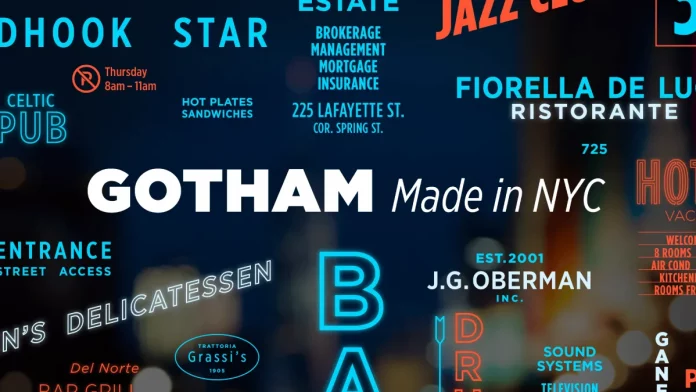
Gotham Variable arrived on Gotham’s 25th anniversary, translating one of the most influential American typefaces of the 21st century into variable format. Hoefler & Co. preserved the geometric clarity that made the original iconic while unlocking the full width and weight design space. Gotham Variable represents a different design philosophy than Helvetica Now Variable—the design space is tighter and more deliberate because Gotham’s character depends on restraint.
Inter Variable
Rasmus Andersson’s Inter is perhaps the most-used variable font on the open web. It was designed from the start as a variable font, which shows in the quality of intermediate interpolations. The weight axis is remarkably clean across the full range. Inter is an excellent reference for anyone learning variable font design because its source files are openly available on GitHub.
The Axis-Master-Instance Pipeline: A Defined Framework
The following framework formalizes the variable font creation process into a repeatable model. I’ve named it the Axis-Master-Instance Pipeline (AMIP) because it reflects the actual sequence of decisions:
Phase 1 — Axis Architecture: Define the design axes before drawing. Number of axes, axis ranges, and interaction between axes should all be resolved on paper first.
Phase 2 — Master Construction: Draw masters at the extreme positions of the design space. Enforce structural compatibility from the first node. The Node Compatibility Principle is non-negotiable here.
Phase 3 — Instance Validation: Generate interpolated instances across the full axis range. Test for kinks, collisions, and optical failures. Adjust the master drawing to correct interpolated behavior.
Phase 4 — Metric and Feature Completion: Finalize spacing, kerning, and OpenType features. Apply them consistently across all master positions and verify interpolated behavior.
Phase 5 — Export and Verification: Export to variable TTF, validate with fonttools and Font Bakery, convert to WOFF2, and implement in CSS with range-aware @font-face declarations.
This pipeline applies to a simple single-axis font as much as to a complex multi-axis design. The discipline of following it in sequence—especially Phase 1 before Phase 2—eliminates most of the compatibility problems that derail variable font projects.
Custom Axes and the Future of Variable Type Design
Registered axes handle the fundamentals. Custom axes are where variable fonts become genuinely original artifacts.
Some examples from current practice: a CASL (Casual) axis in Recursive by Arrow Type transitions from mechanical monolinear to casual brushlike letterforms within a single file. A GRAD (Grade) axis—used in typefaces like Roboto Flex—adjusts apparent weight without changing glyph widths, which is critical for dark mode transitions that must not cause layout reflow.
The four-character uppercase custom axis tag convention allows foundries to build entirely novel typographic behaviors. This is, in my view, the most underexplored creative territory in type design today. Most variable fonts use only registered axes because they’re easier to implement and universally understood. But the custom axis space is where the next generation of expressive typefaces will emerge.
Looking forward: As browser support for font-variation-settings matures and design tools like Figma expose variable axis controls more prominently, and demand for multi-axis fonts with well-designed custom behaviors will grow significantly. Type designers who understand how to build and document custom axes will have a clear competitive advantage.
Common Mistakes When Creating Variable Fonts
After walking through the pipeline, it’s worth naming the failures that most frequently appear in practice.
Incompatible masters are the most common. Node count mismatches between masters produce interpolation failures that range from subtle distortions to completely broken outlines.
Undefined default values create user experience problems. If no default is specified, rendering engines fall back to their own defaults, which may not reflect the designer’s intent.
Ignoring intermediate instances is dangerous. Designers often test only the master positions and miss optical problems that appear in the interpolated range—collapsed counters, colliding components, or crossing contours.
Over-kerning at a single master produces kerning that behaves incorrectly at other axis positions. Kern at both extremes and verify all intermediate values.
No font validation before delivery leads to broken implementations. Font Bakery and fonttools are not optional steps. They catch real errors that visual review misses.
Using Variable Fonts in CSS: The Essentials
Once your variable font is built and exported, implementing it correctly in CSS matters as much as the font itself. For registered axes, use the high-level CSS properties: font-weight for wght, font-stretch for wdth, font-style for ital and slnt. Browsers map these automatically and handle fallback gracefully.
For custom axes, use font-variation-settings with the four-character axis tag and a numeric value. Note that font-variation-settings does not inherit individual axis values—redeclaring a property overwrites all axis values entirely. The standard solution is CSS custom properties: define each axis value as a variable, then combine them in a single font-variation-settings declaration.
Animate variable font axes with CSS transitions or keyframe animations. Because axis values are numeric, they interpolate smoothly in CSS just as they do in the font rendering engine. This enables weight-on-hover interactions, viewport-responsive weight scaling, and scroll-driven typographic animation—all without JavaScript.
Frequently Asked Questions About How to Create Variable Fonts
What software do I need to create a variable font?
The two primary professional tools are FontLab 8 (Mac and Windows) and Glyphs 3 (Mac only). Both fully support variable font creation, including custom axes, multi-master interpolation, and export to variable TTF format. RoboFont with Superpolator is a strong alternative for script-oriented designers. FontForge is a free option suitable for learning and low-budget projects.
How many masters does a variable font need?
A single-axis variable font needs a minimum of two masters—one at each extreme of the axis. A two-axis font requires a minimum of four masters, one at each corner of the design space. Additional masters can be added as intermediate points to correct interpolation behavior where the two-master interpolation produces unwanted results.
What does “compatible masters” mean in variable font design?
Compatible masters have an identical glyph structure across every character: the same number of contours, the same number of nodes per contour, nodes in the same sequence, and contours traveling in the same direction. Without compatibility, the font editor cannot interpolate between masters, and the variable font cannot be exported.
What is the difference between registered and custom axes in variable fonts?
Registered axes are standardized by the OpenType specification: wght, wdth, ital, slnt, and opsz. They have defined CSS mappings and universal browser support. Custom axes use four-character uppercase tags defined by the type designer and require font-variation-settings for CSS implementation. They can represent any design dimension the type designer chooses.
How do I validate a variable font after export?
Use fonttools (a Python library) and Font Bakery (an automated font quality assurance tool) to check axis definitions, glyph compatibility, OpenType table integrity, and instance consistency. The online tool Wakamai Fondue also provides quick visual validation. Always validate before delivering a font to clients or publishing it publicly.
Can I create variable fonts with a free tool?
Yes. FontForge is free and open-source with basic variable font support. The workflow is more manual and the interface less refined than commercial tools, but it is functional. For production-quality work intended for professional use, FontLab or Glyphs is strongly recommended.
How large are variable font files compared to static font families?
A single variable font file is larger than a single static font file. However, it is smaller than the combined size of a full static font family. When four or more weights are needed, variable fonts typically reduce total file size by 30 to 65%, improving web performance.
Do all browsers support variable fonts?
All major modern browsers—Chrome, Firefox, Safari, and Edge—support variable fonts. Browser compatibility scores sit at approximately 92 out of 100 according to recent LambdaTest data. Fallback strategies using standard @font-face declarations with a static font ensure acceptable rendering in the small percentage of legacy browsers without support.